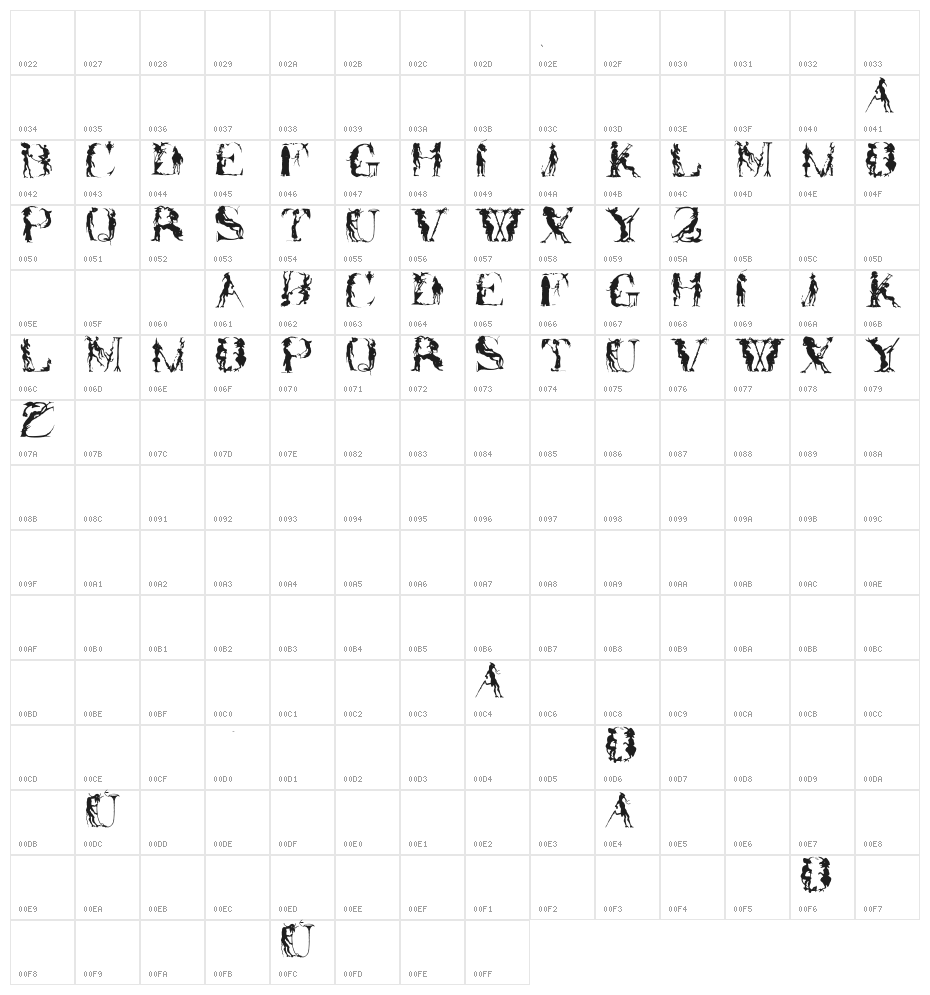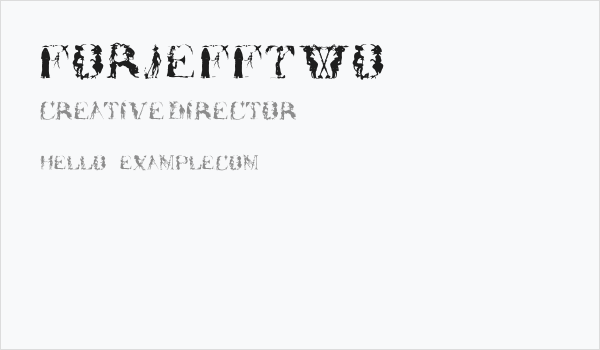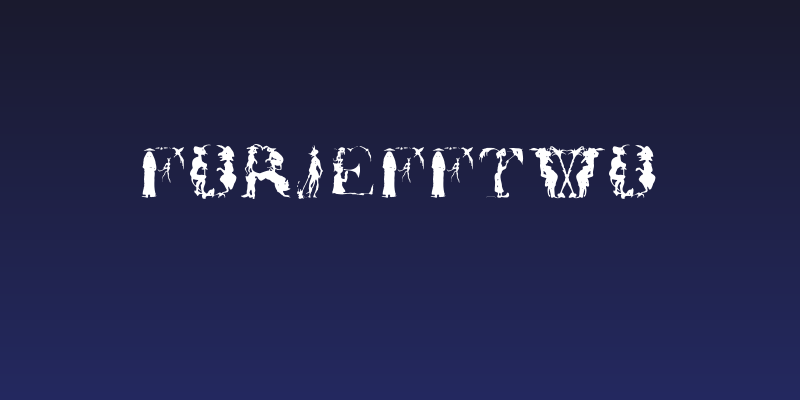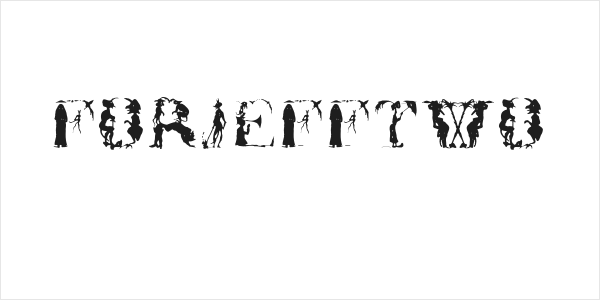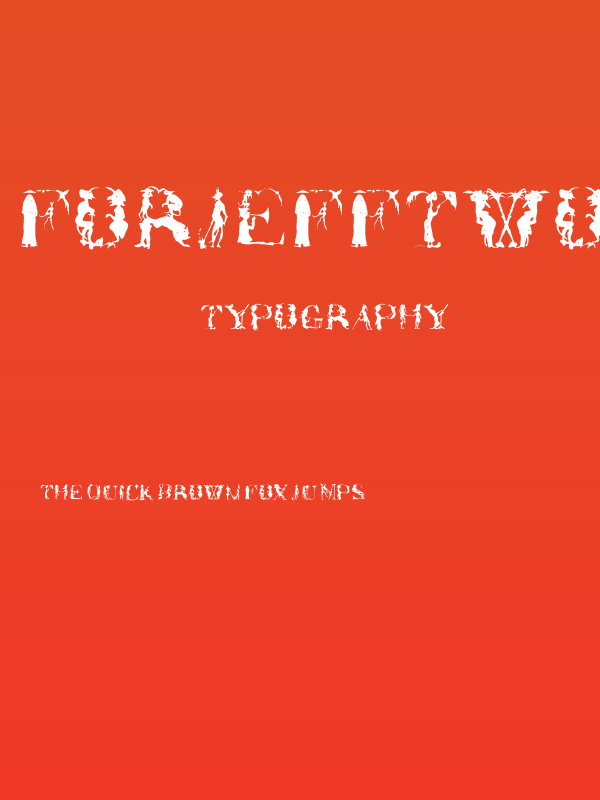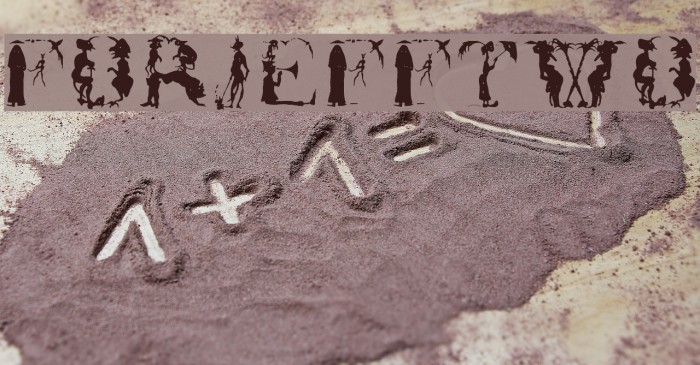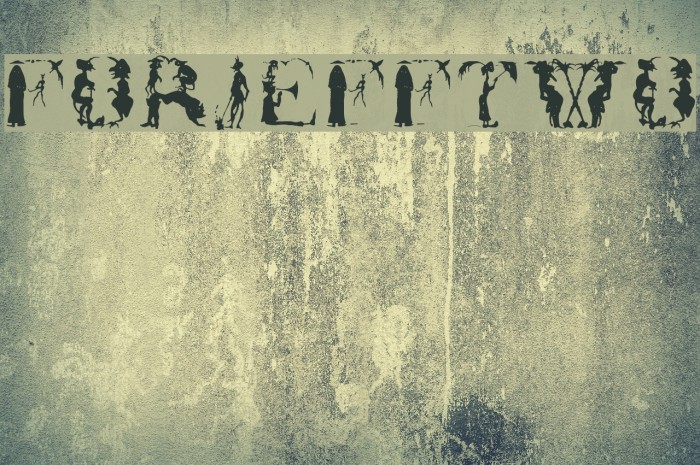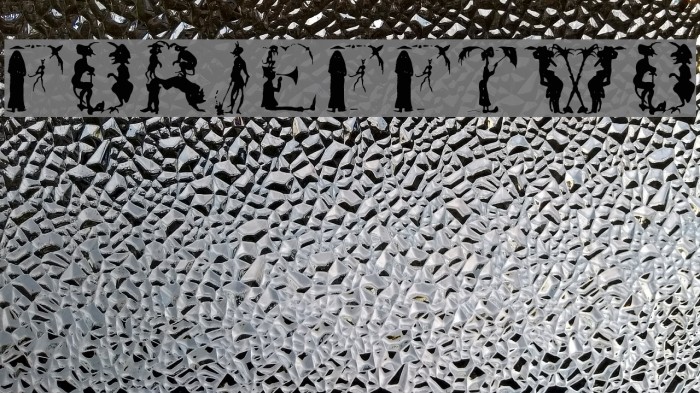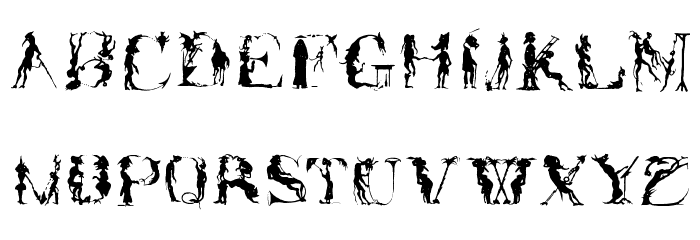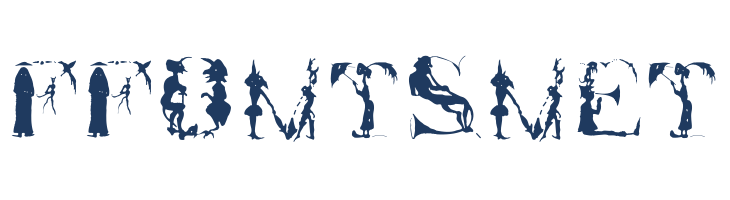
ForJeffTwo Font
ForJeffTwo Description
This font is an intricate and artistic design, featuring silhouettes of people and abstract shapes integrated into each letter. The characters are highly decorative, with a unique blend of human figures and organic elements that create a striking visual impact. Each letter is distinct, with varying levels of detail and complexity, making it a captivating choice for creative projects. The font's artistic nature makes it more suitable for decorative purposes rather than readability in large blocks of text. Its bold and imaginative style can add a dramatic flair to any design, capturing attention with its unconventional and expressive form.
| Proposed Projects | Ideal for posters, album covers, artistic projects, and creative branding. |